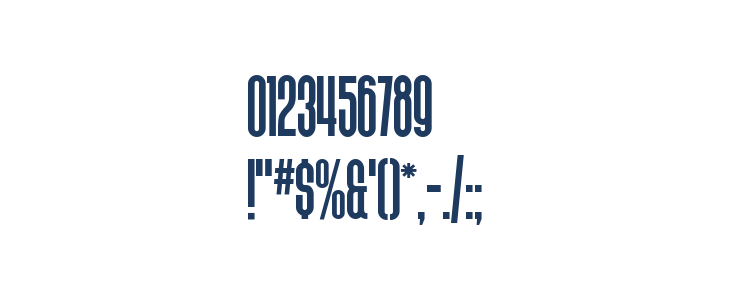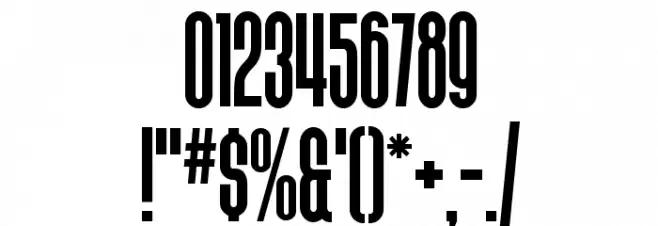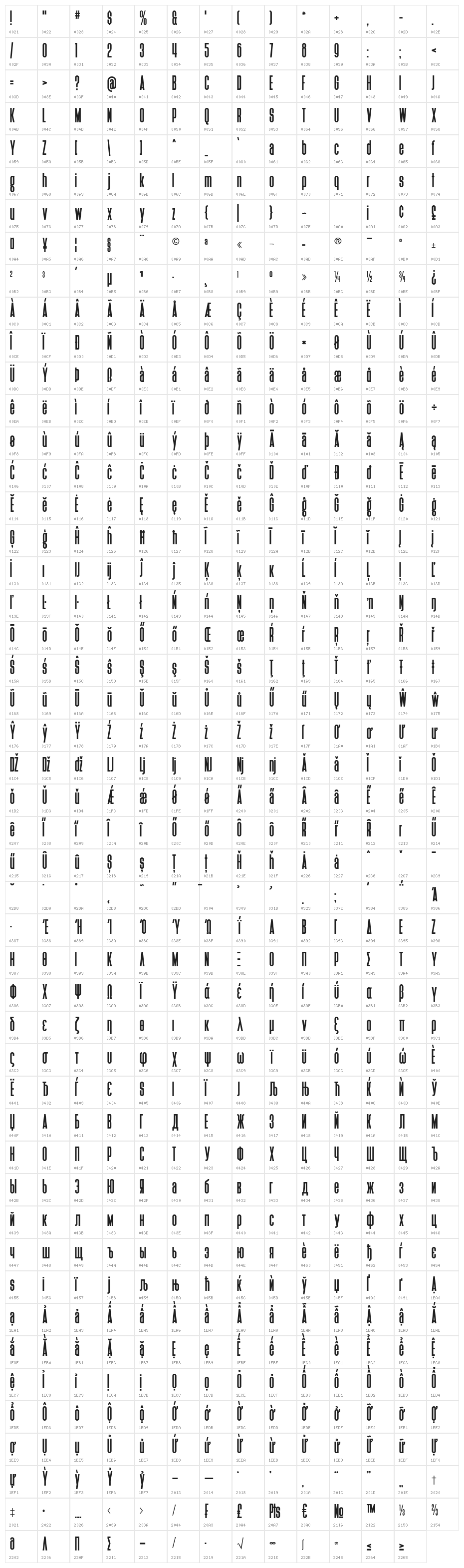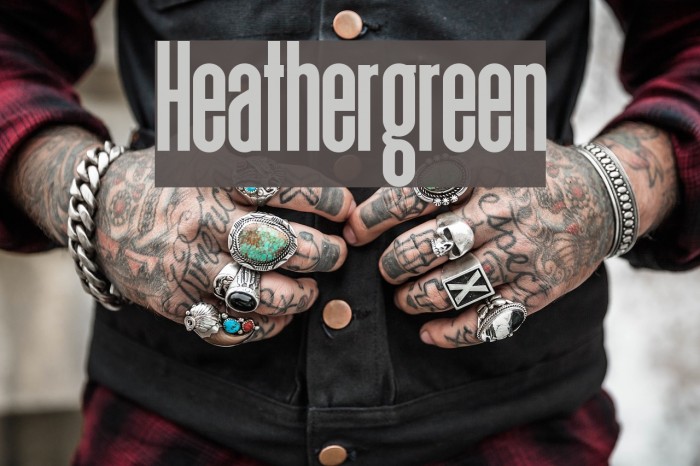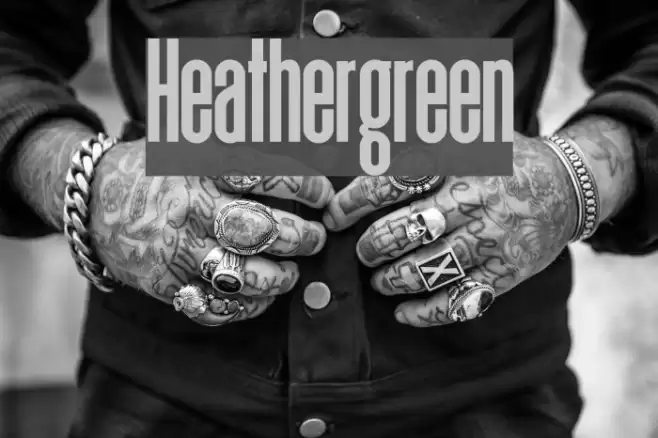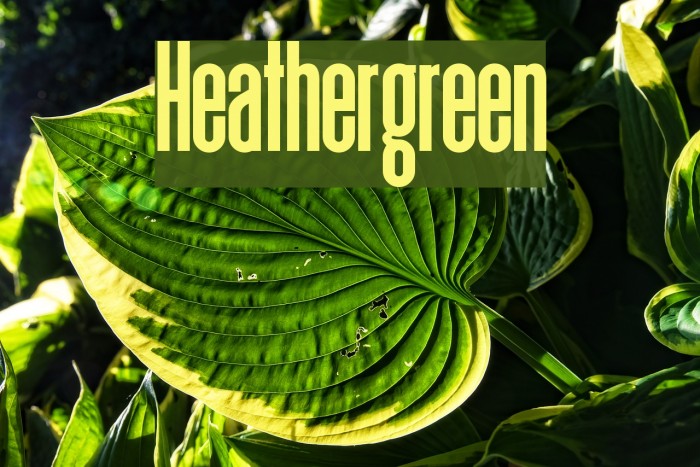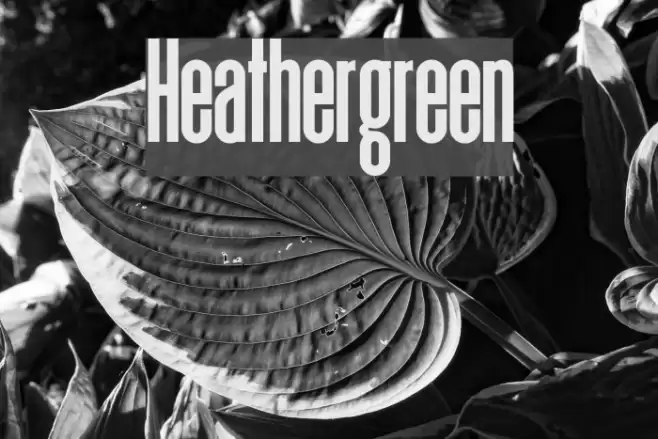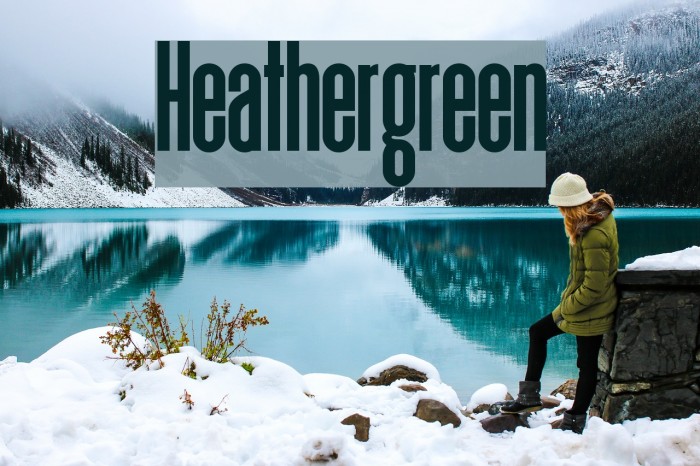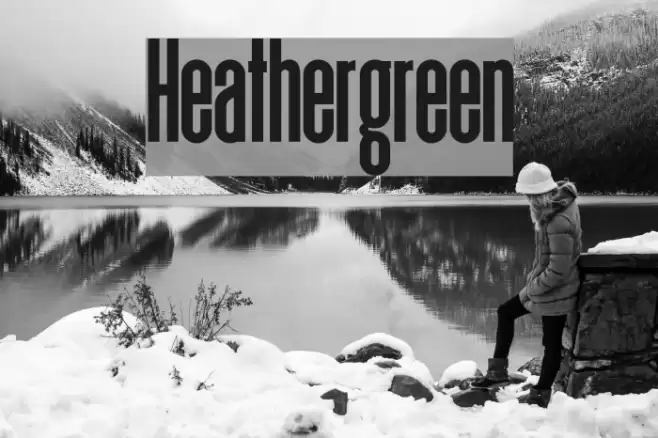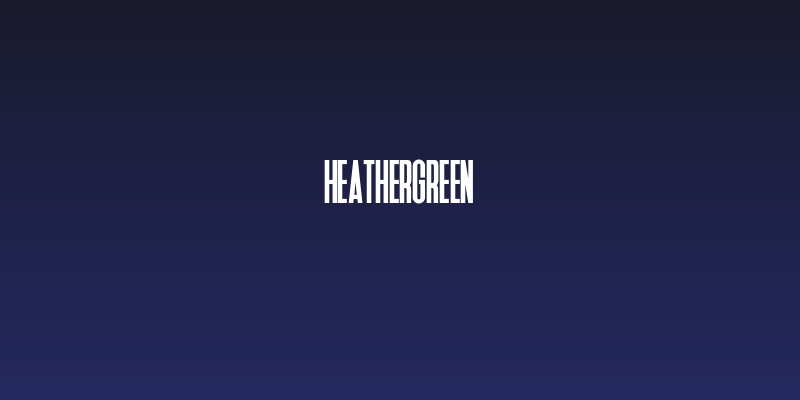
Heathergreen Font
Heathergreen Description
This font features bold, elongated characters with a strong vertical emphasis, creating a striking and impactful appearance. The uppercase letters are tall and commanding, while the lowercase letters maintain a consistent height, enhancing readability. The numbers are equally bold, ensuring they stand out in any context. Special characters are designed with the same boldness, making them suitable for attention-grabbing designs. The overall style is modern and assertive, perfect for making a statement.
Proposed ProjectsIdeal for headlines, posters, advertising, and branding projects that require a bold and modern look.